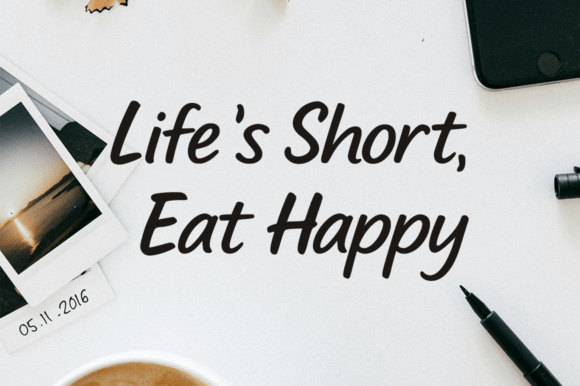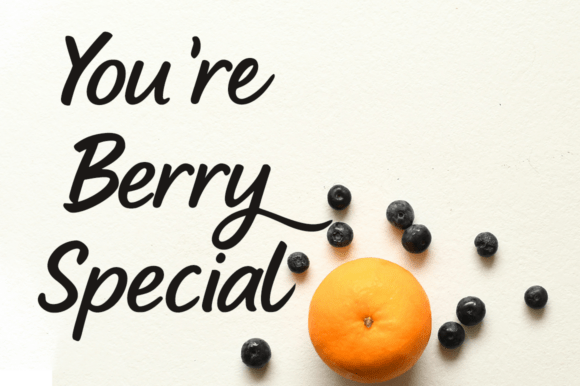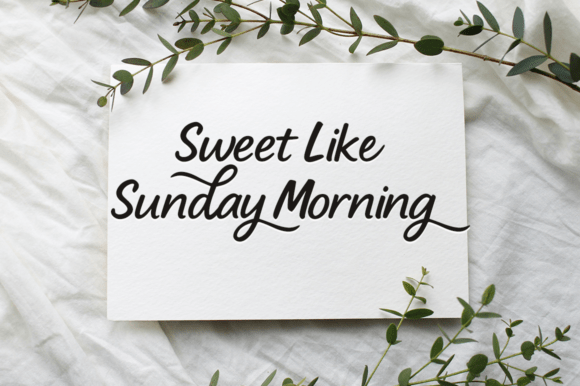
Blueberry Snack Font
Experience the playful enchantment of Blueberry Snack, a delightful handwritten script font that infuses your creative endeavors with a dash of sweetness. Crafted with sleek curves imitating a natural handwritten rhythm, this lovable font is a must-have for creators, designers, and those who relish in assembling congenial and fun designs.Blueberry Snack is versatile, a perfect pick for: -Cricut activities and print-and-cut crafting masterpieces -Printable sentiments including quotes, invitations and greeting cards -Product packaging elements and food labels -Logo creation, T-shirt designs, and brand crafting -DIY ventures, scrapbooking, and much more!Whether you are composing earnest prose for your organizer or fashioning charming product labels, Blueberry Snack infuses every alphabet with warmth and personality. The clean, carve-able strokes are perfect for digital crafting tools and cutting machines.